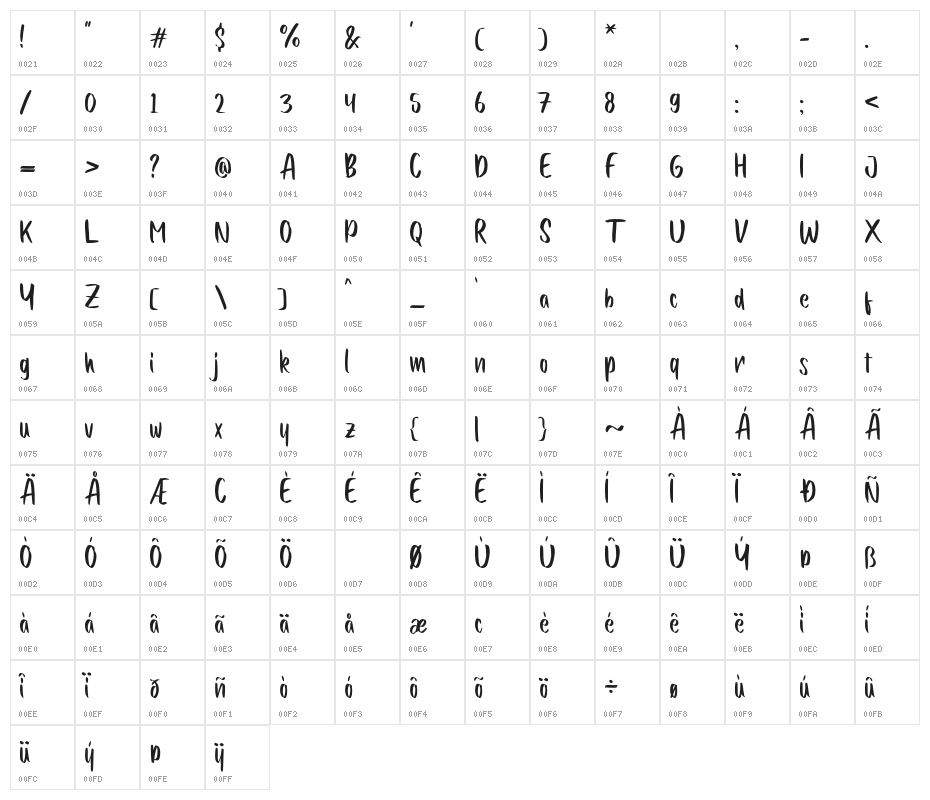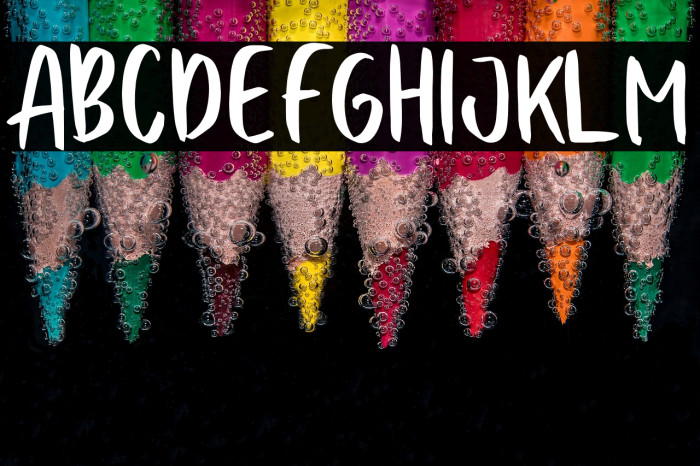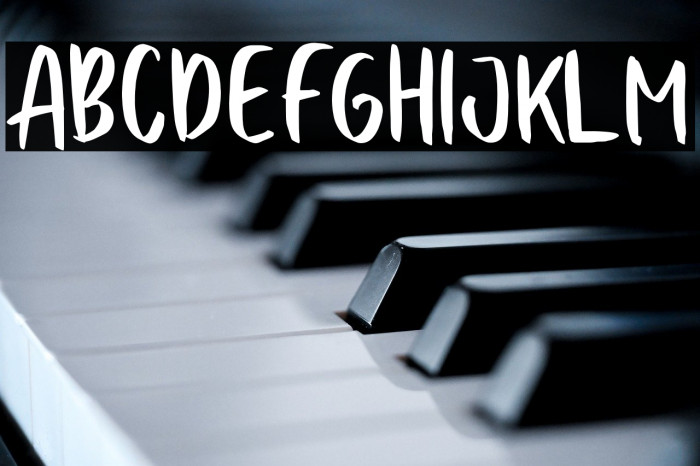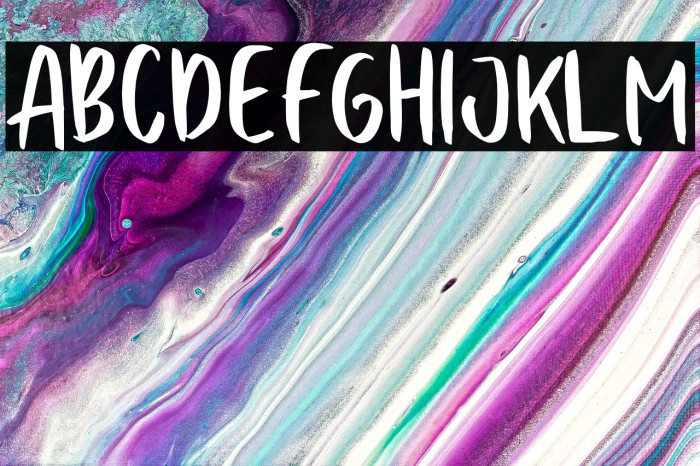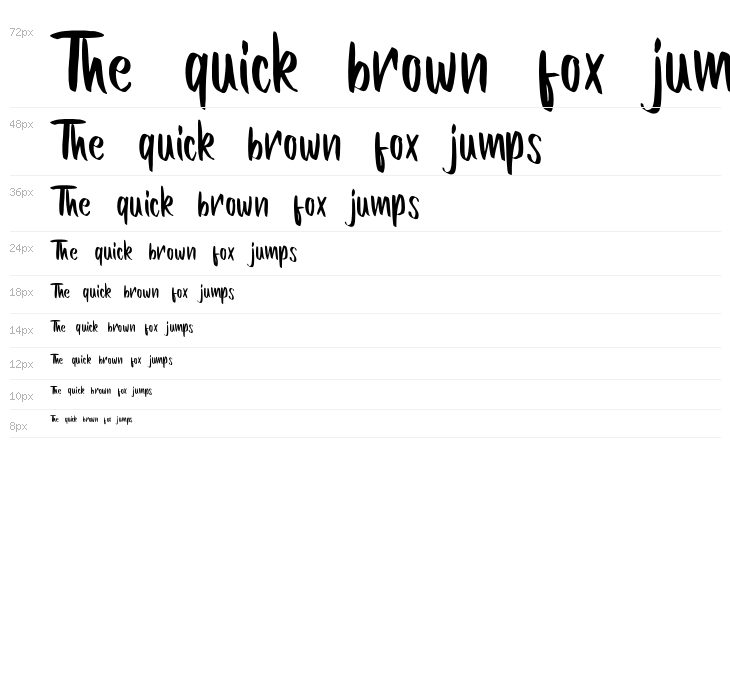
Quicken Font
Quicken Description
This font features a playful and energetic handwritten style, characterized by bold strokes and a slightly irregular baseline that adds to its charm. The uppercase letters are tall and expressive, while the lowercase letters maintain a consistent flow, enhancing readability. The numbers are bold and match the overall style, making them stand out. Special characters are creatively designed, adding a unique touch to the font. This font's dynamic appearance makes it suitable for projects that require a personal and informal touch, such as invitations, posters, and social media graphics. Its boldness ensures visibility and impact, while the handwritten style conveys a sense of warmth and approachability.
| Overall Style | Playful, Energetic, Informal |
| Use Case | Headlines, Logos, Invitations |
| Proposed Projects | Ideal for invitations, posters, social media graphics, and any project needing a personal, informal style. |